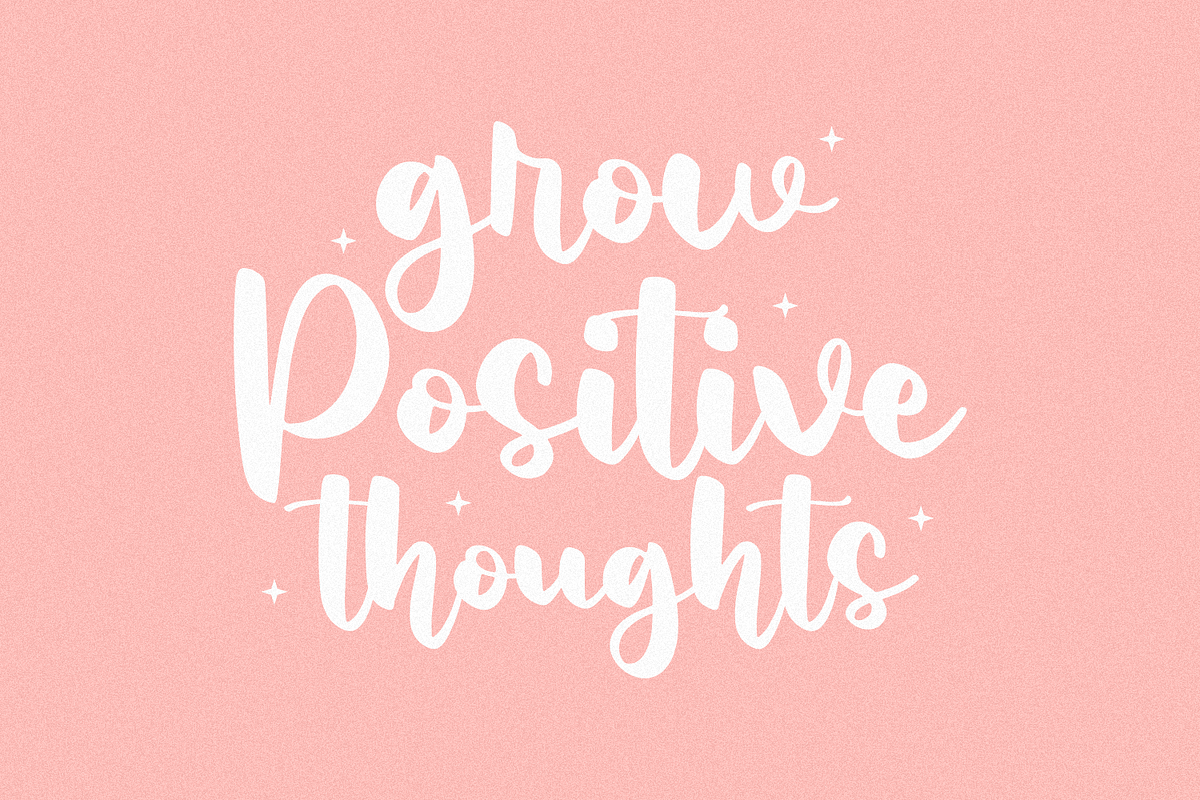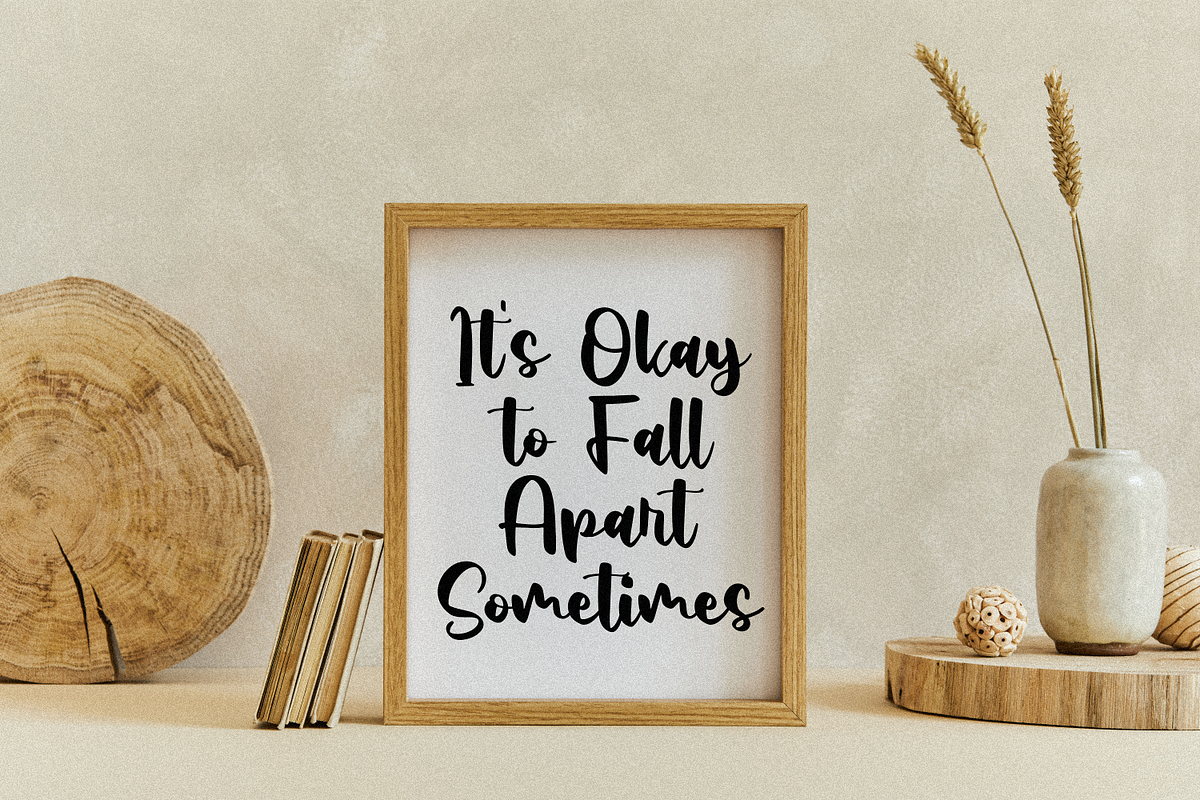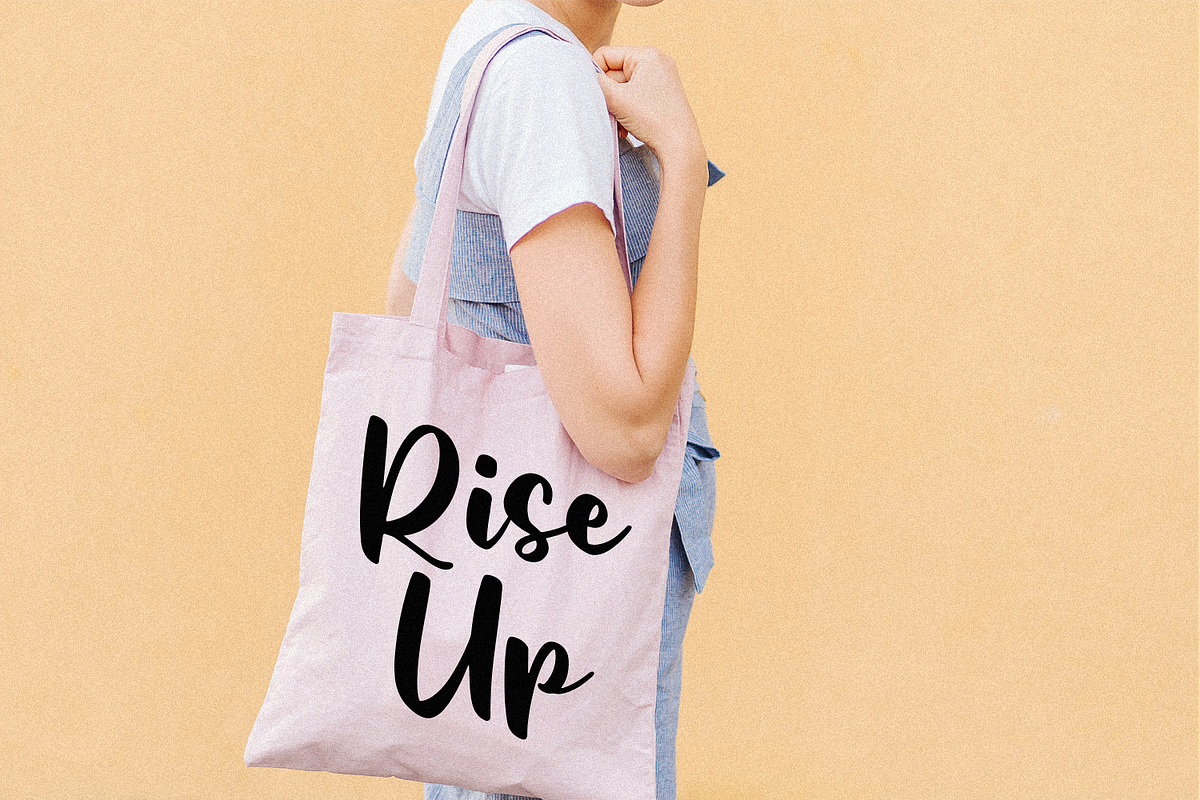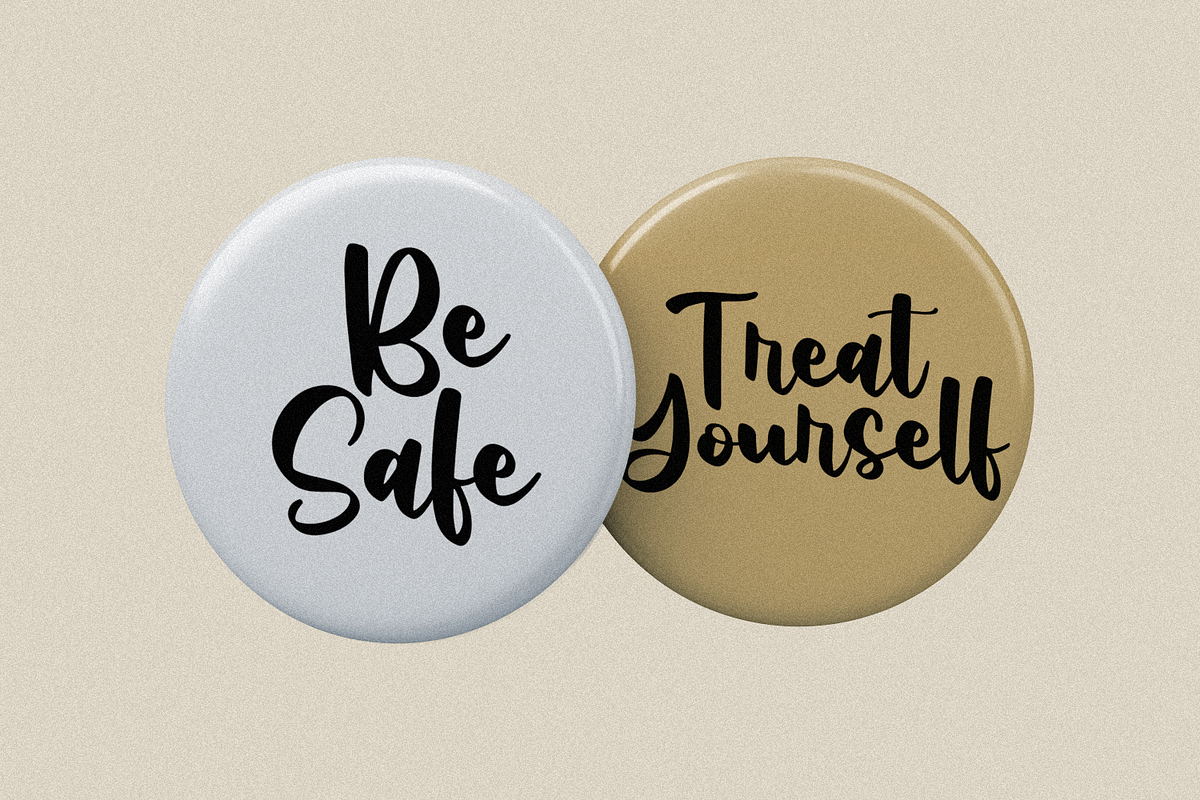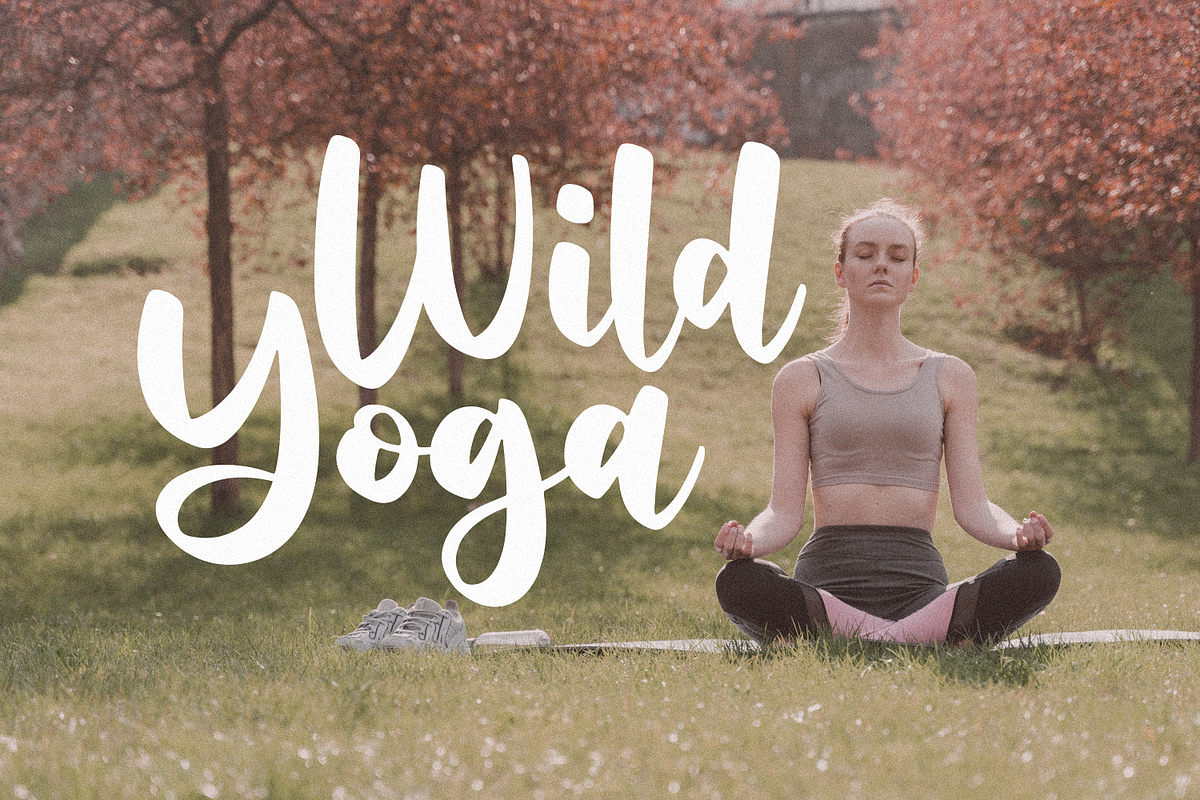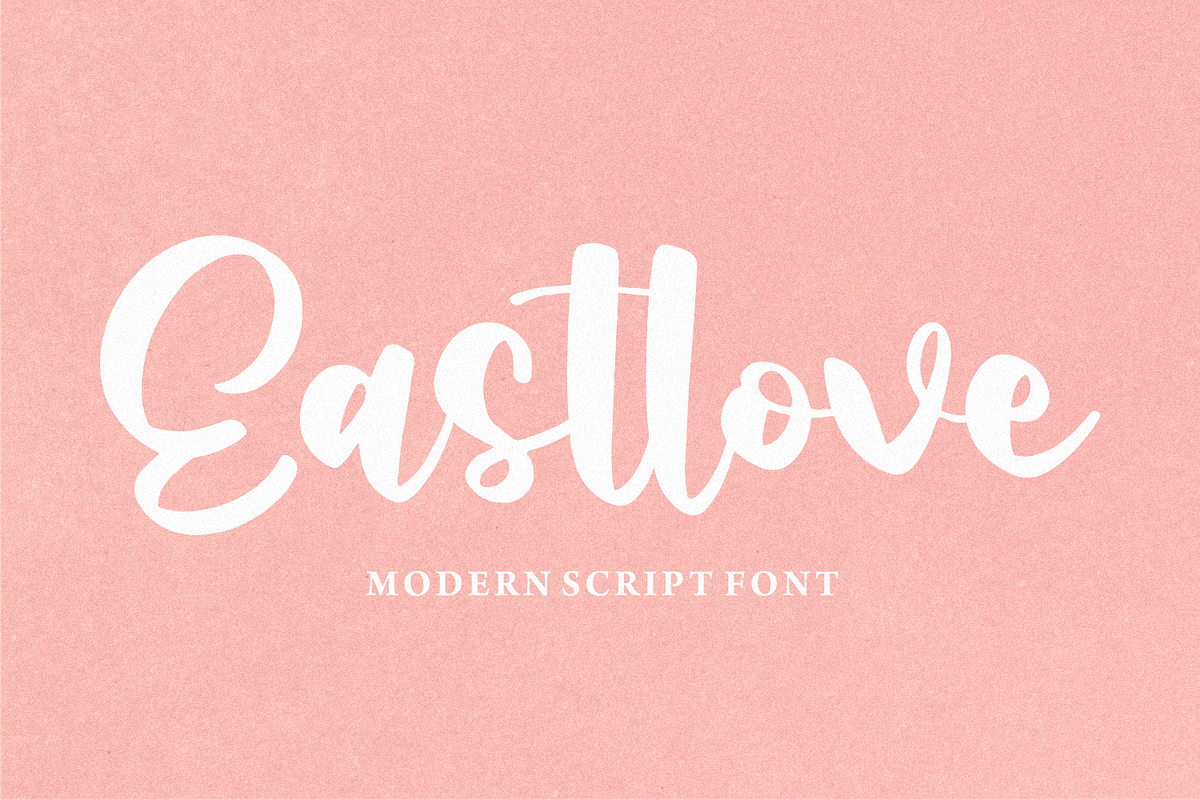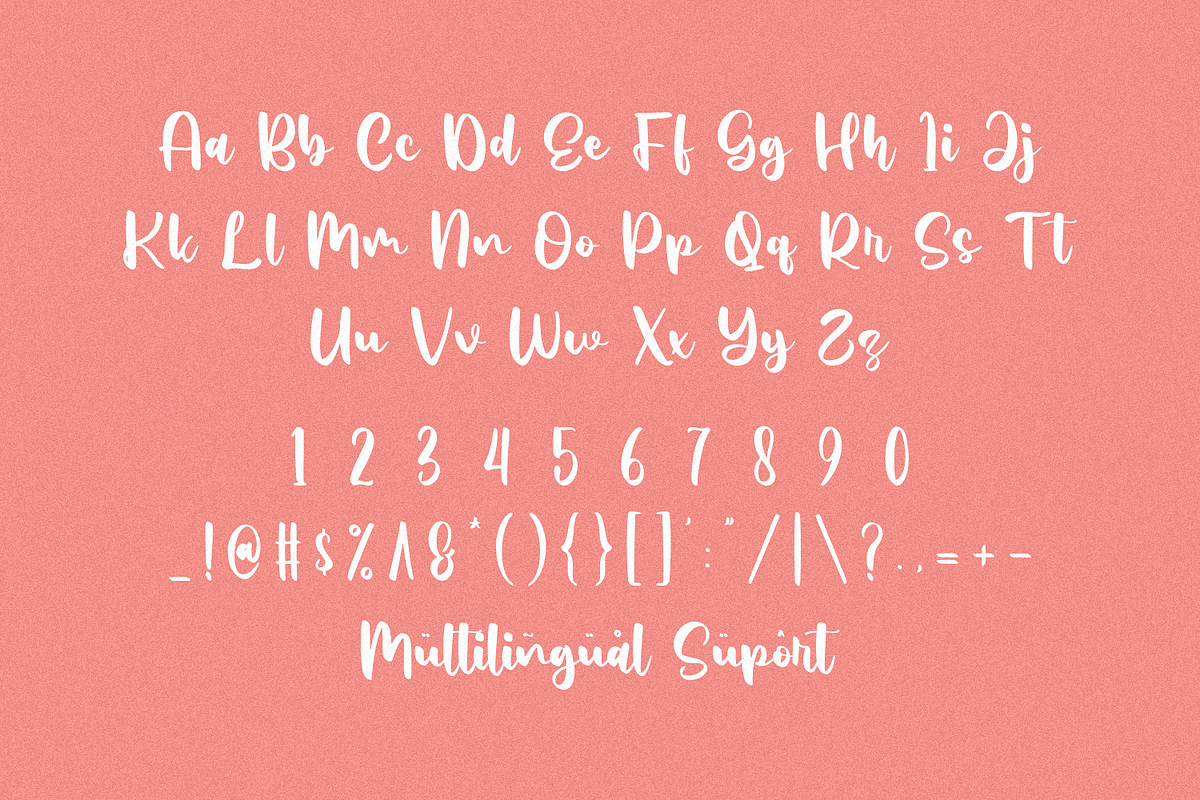
Eastlove
Introducing Eastlove by Forberas Club
Eastlove is a Handwritten Script font that will make your designs look classic, Farmhouse, Boho, and Feminine. It is a great font for events, Wedding Project, fashion, apparel projects, signature, album covers, logos, branding, magazines, social media posts, advertisements, but it also works great for other projects. Add it to your fonts’ library, and it will enhance your creativity!
Sightli is best for:
- logos, branding, & Signatures.
- Flyers, Album cover, Magazine, & Advertisements.
- Website design , design blogs, & fashion.
- Quote graphics for social media. - and also it works great for other projects.
- Character Set